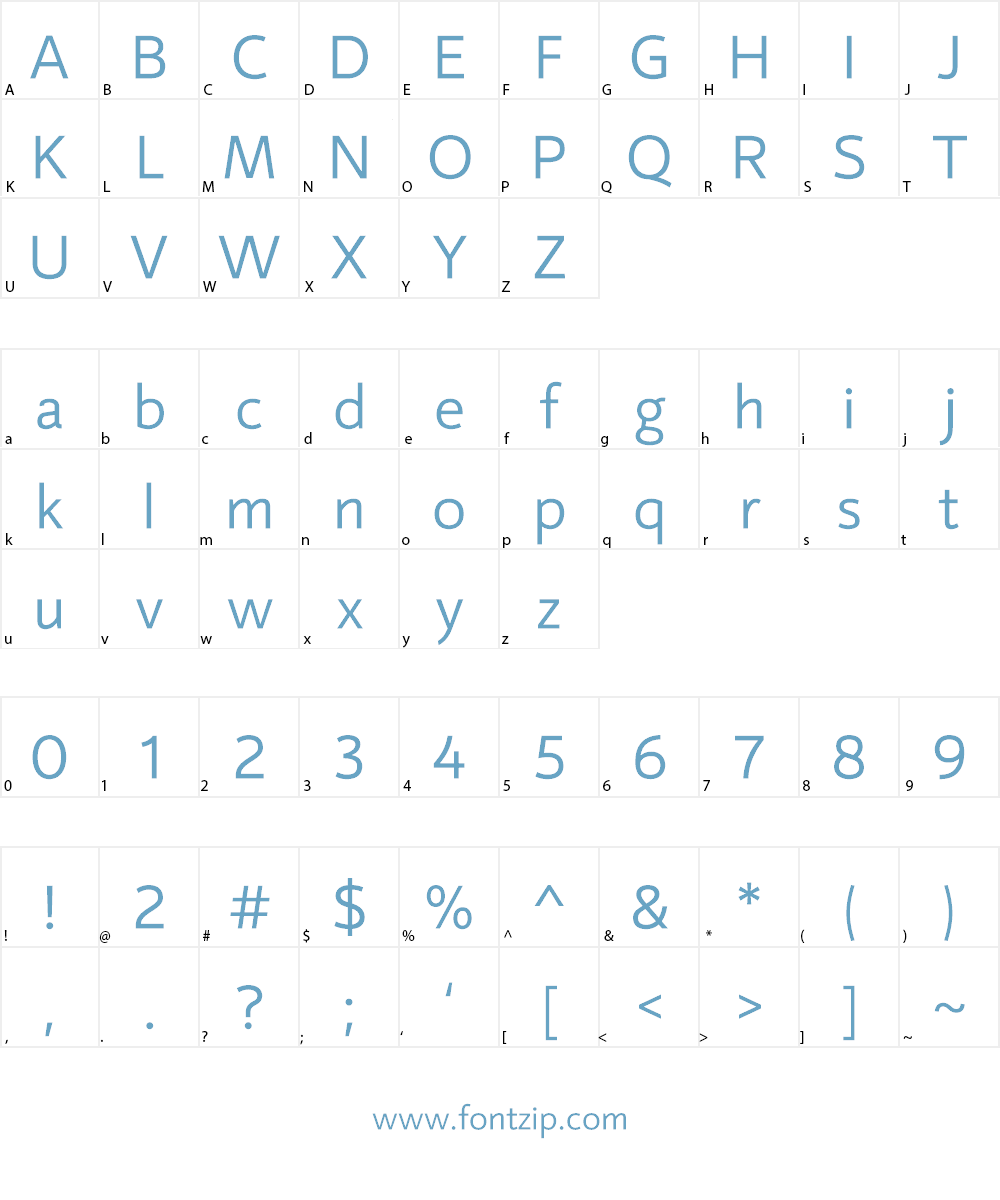
Mirror 82 is a free simplae and clean sans serif font. It contains uppercase and lowercase letters, numbers and symbols, ligatures, supports multilanguage, including Latin and Cyrillic languages.